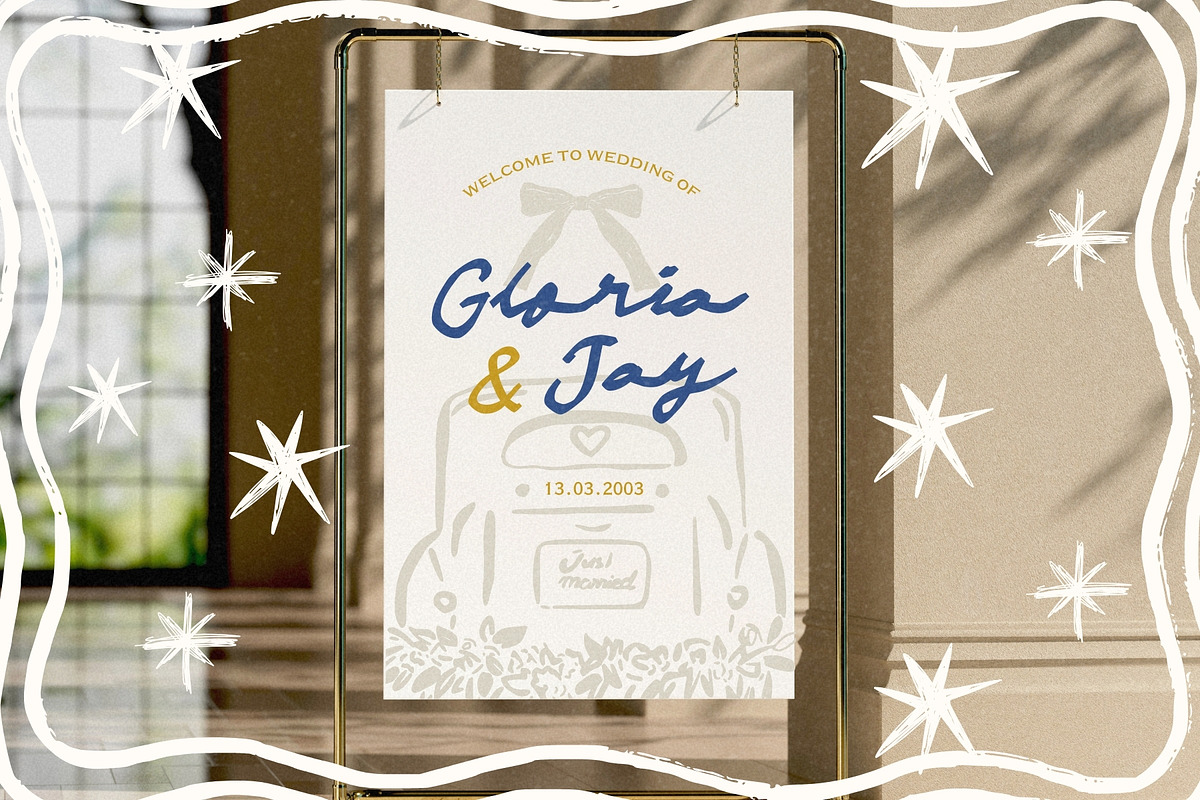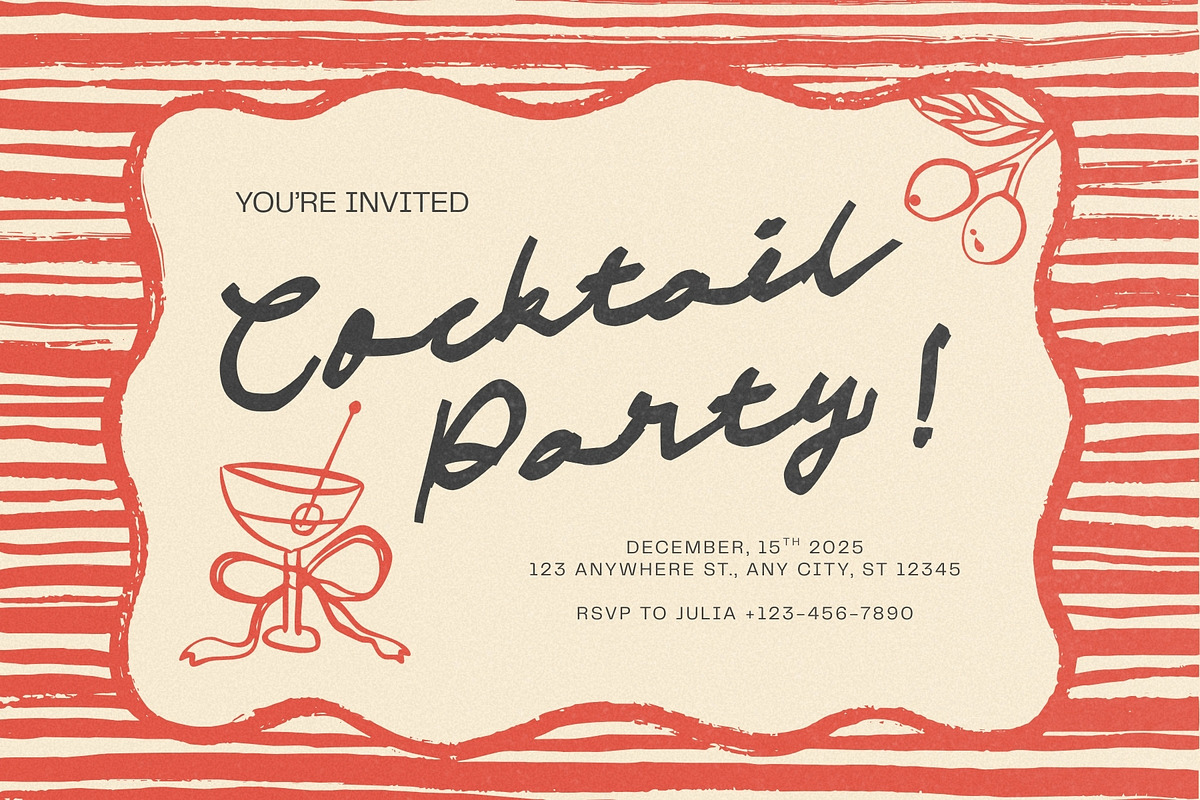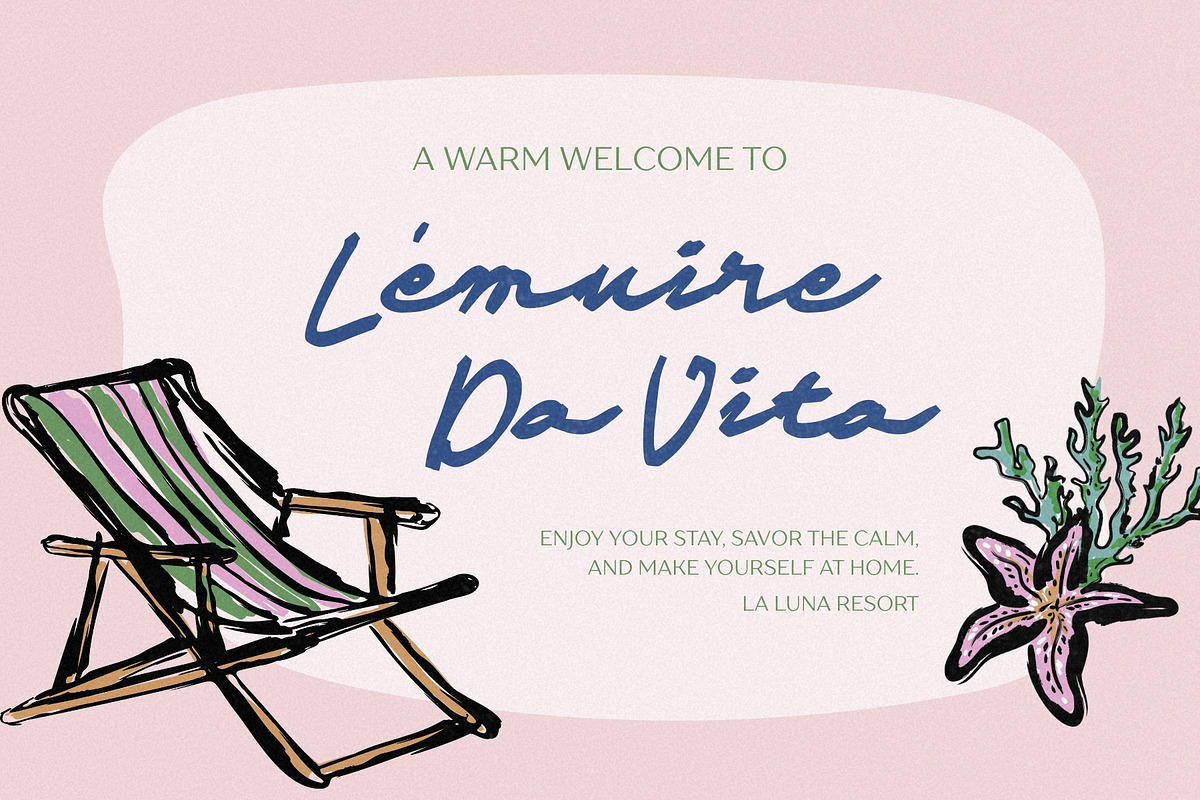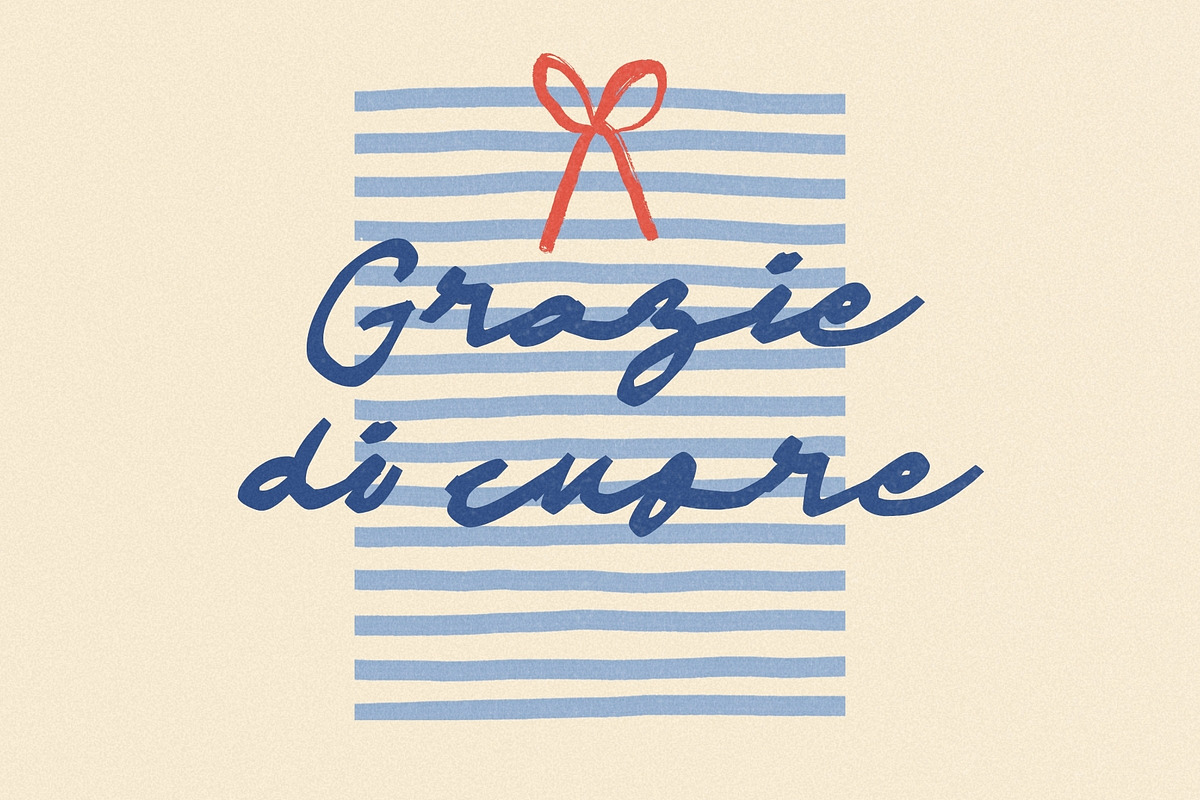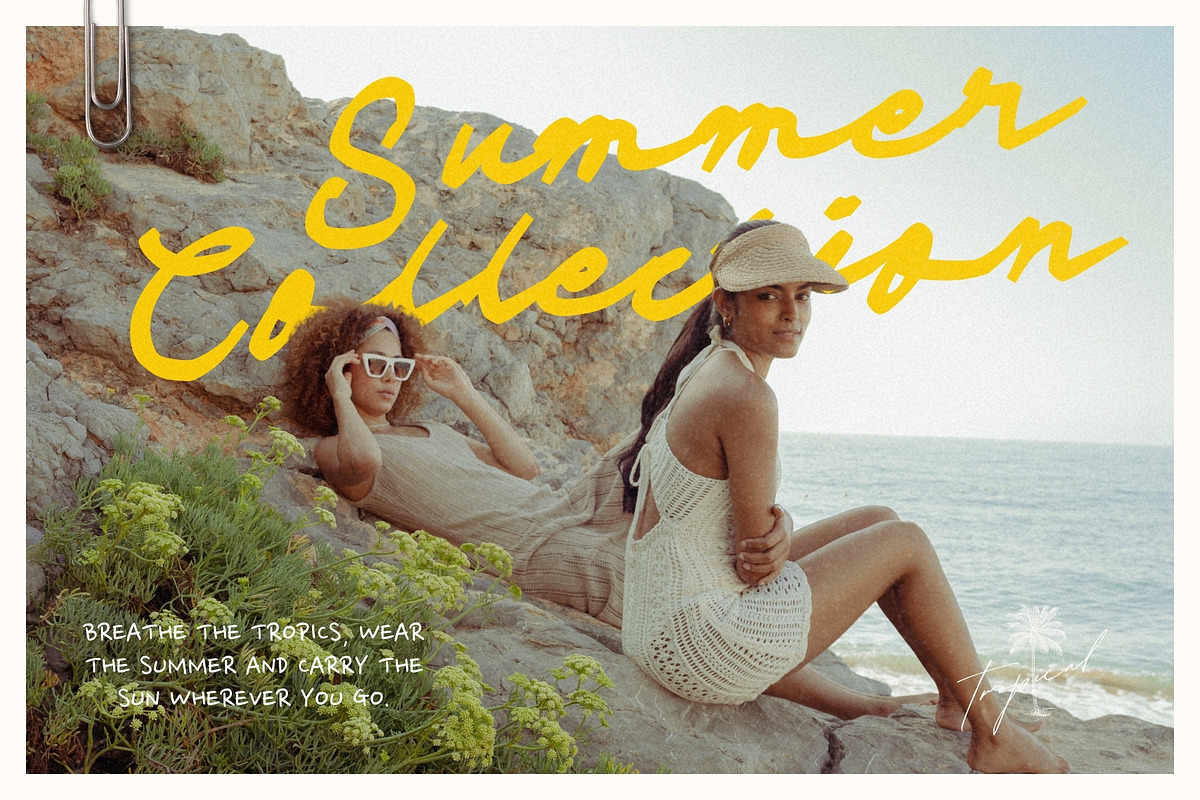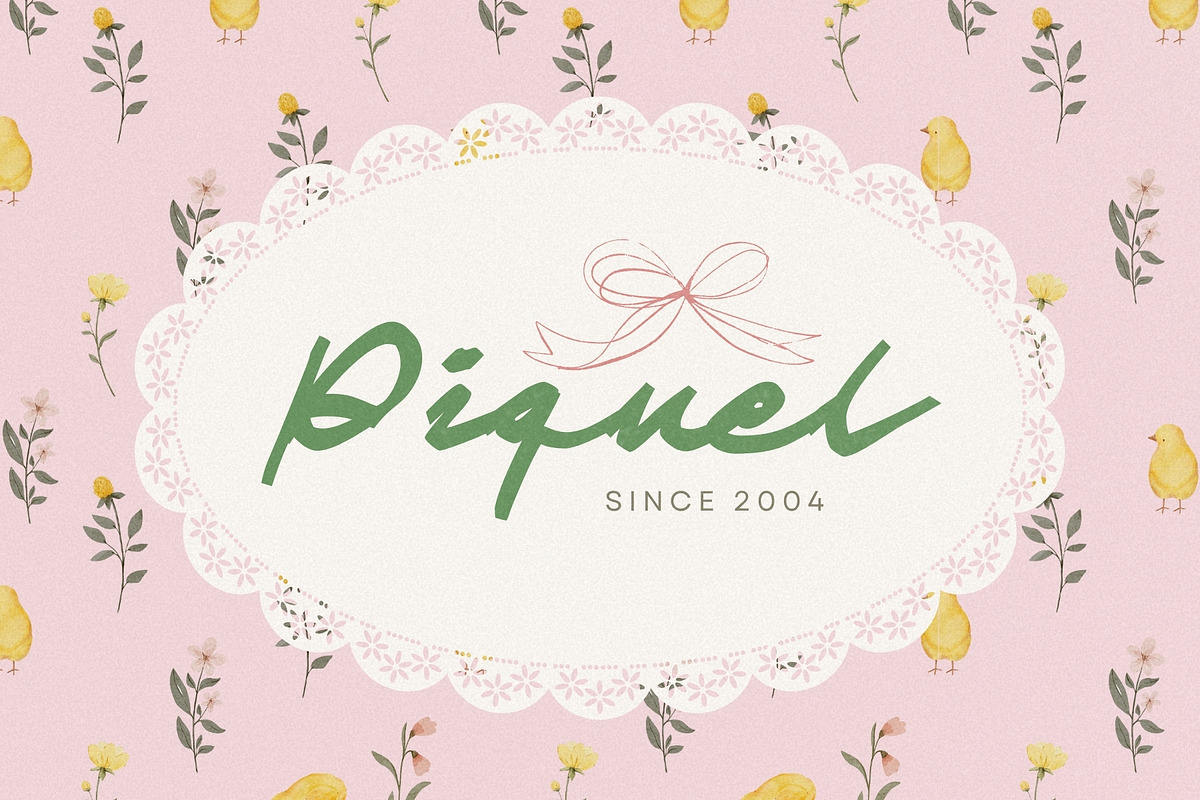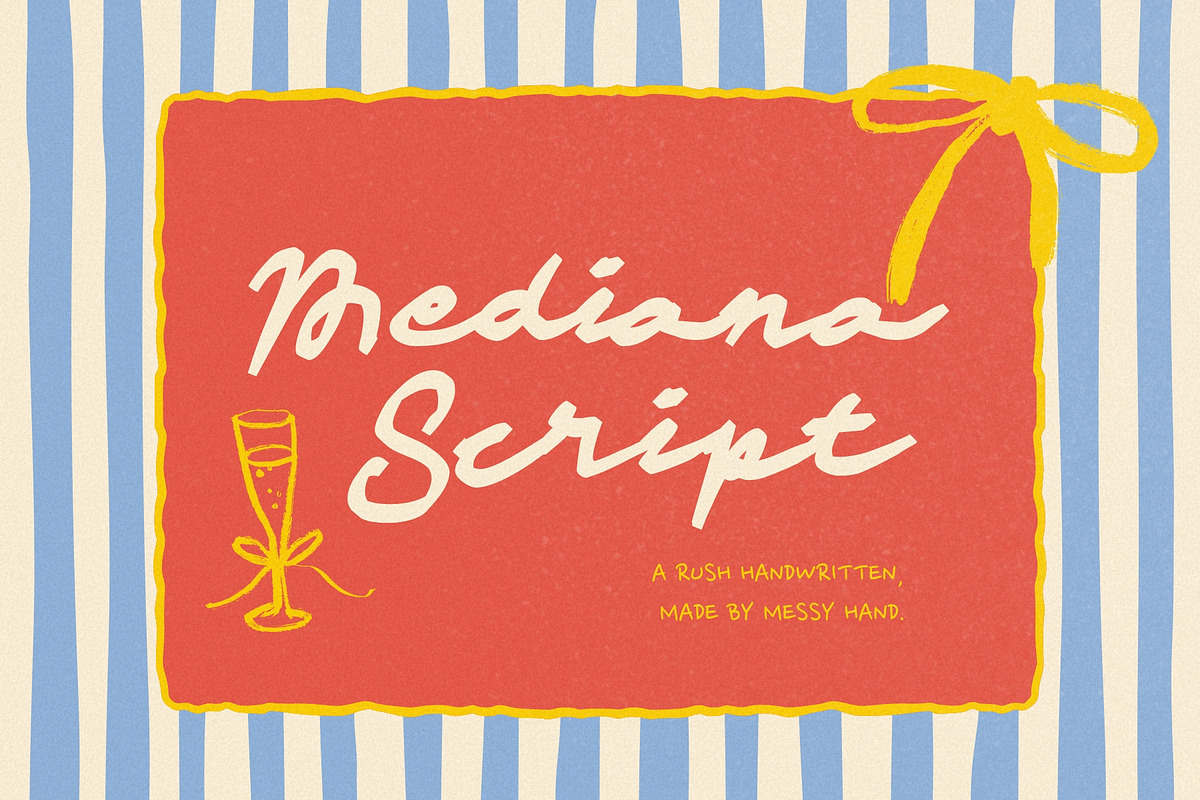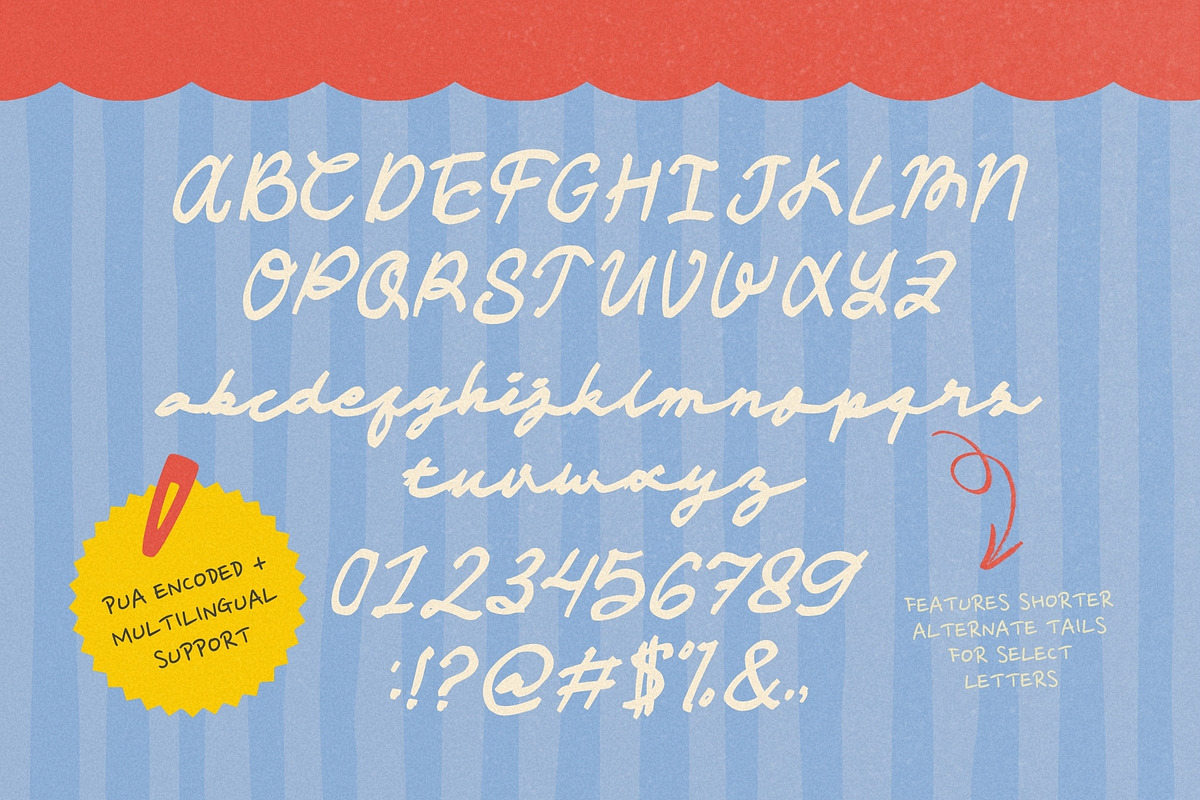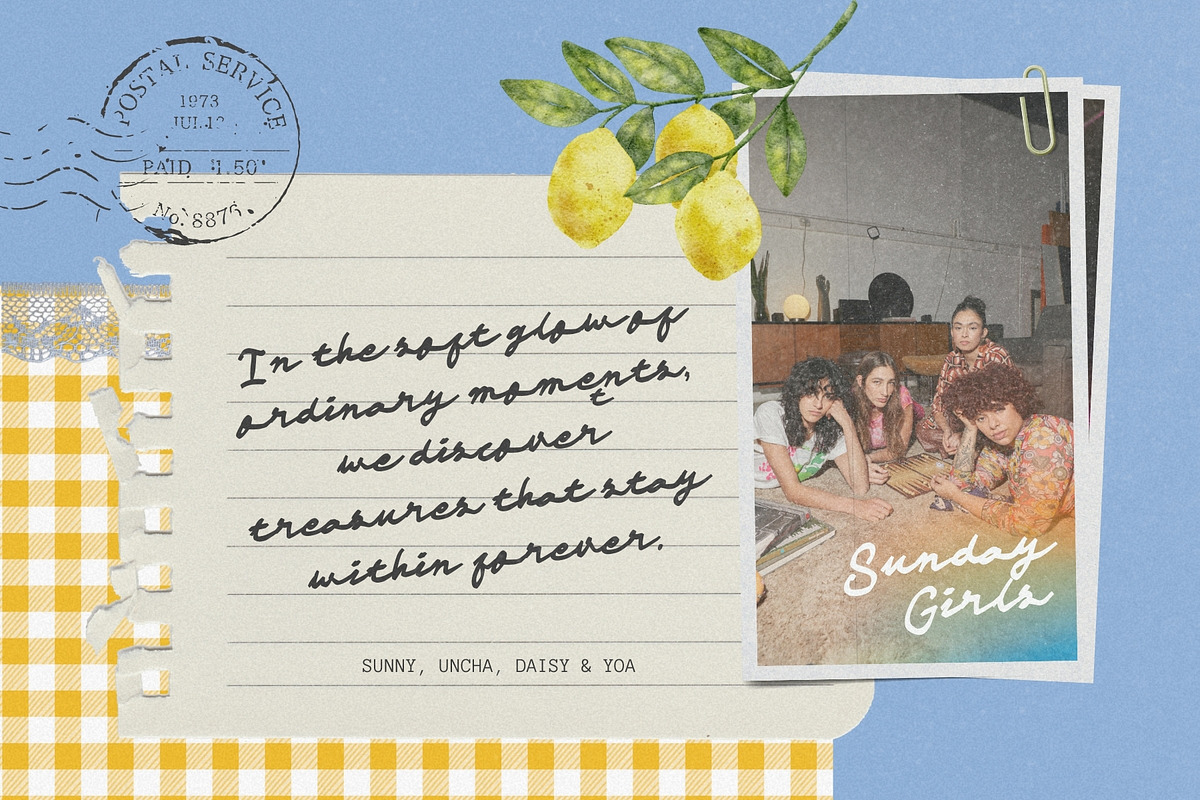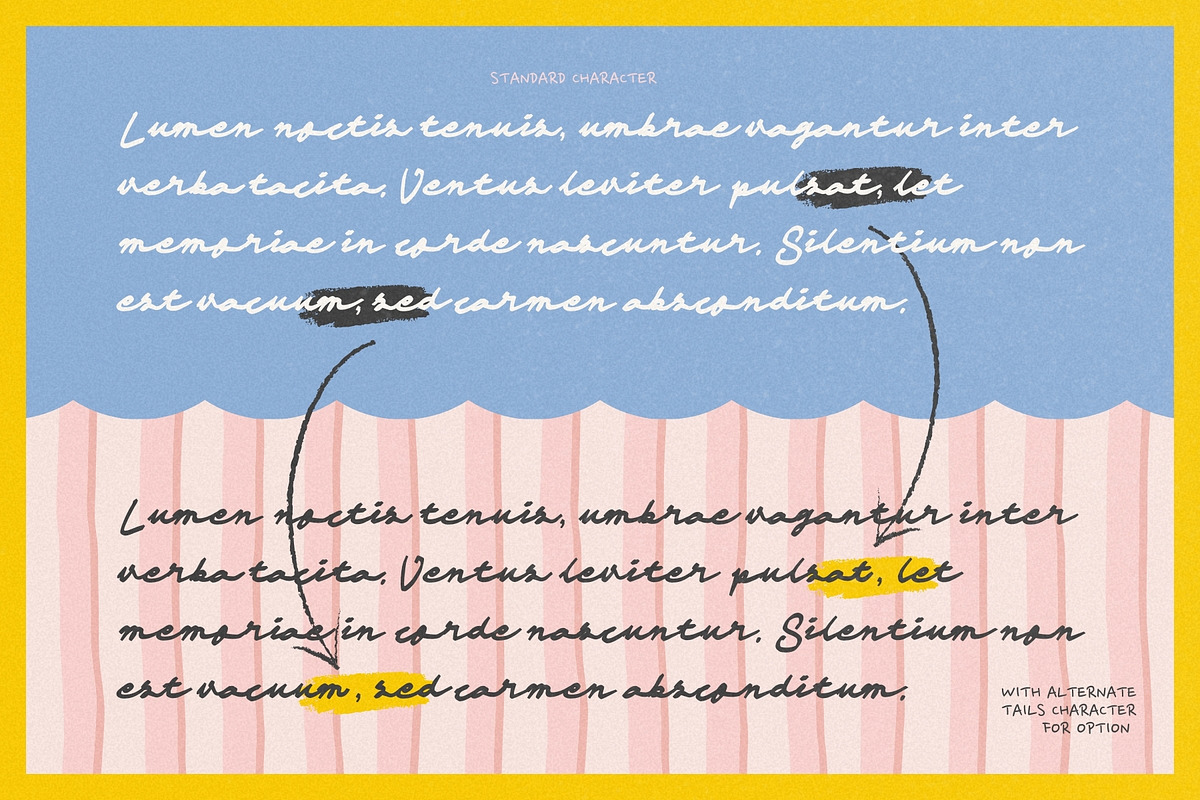
Mediana - Rush Nostalgic Script
Mediana Script is a lively handwritten script with a playful & nostalgic, carefree vibe that feels spontaneous and full of personality. The imperfect lines give it charm and energy, adding a warm human feel that makes your design approachable and memorable. Its quick, messy strokes capture the look of real handwriting done in a rush, making it perfect for casual branding, fun packaging, poster designs, social media graphics, or anything that needs an authentic, laid-back touch.
- Alternates or Ligatures